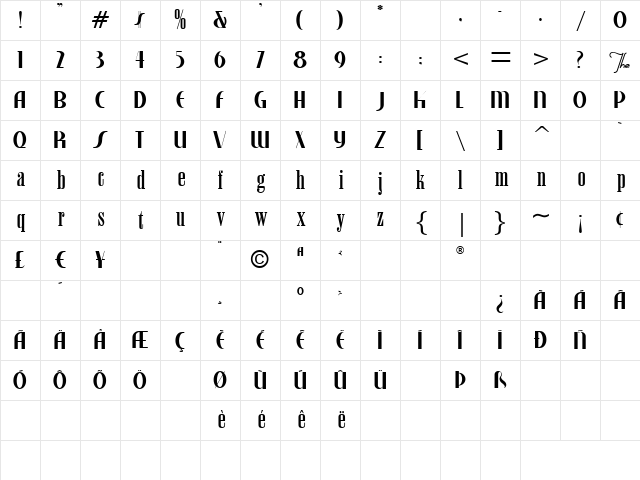
Studebaker Revised Regular Free Font
Studebaker Revised Regular
Design Context for Studebaker Revised
Studebaker Revised is a composed and adaptable typeface that performs quietly and consistently across a wide range of design contexts.
Pro Tip: Use Studebaker Revised in both headline and body roles to test its range before committing to a single application.